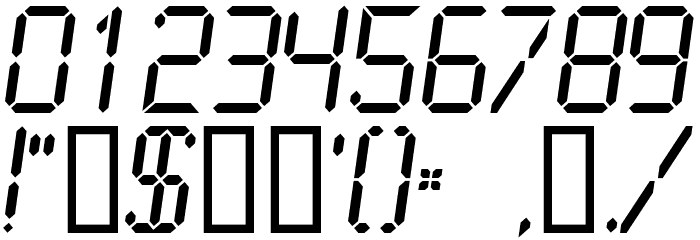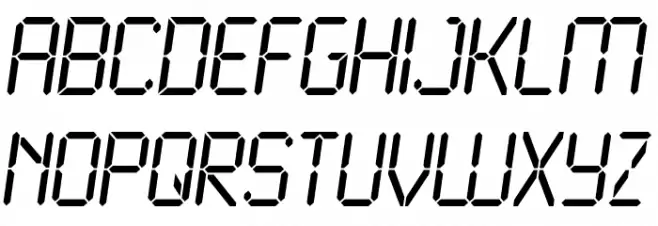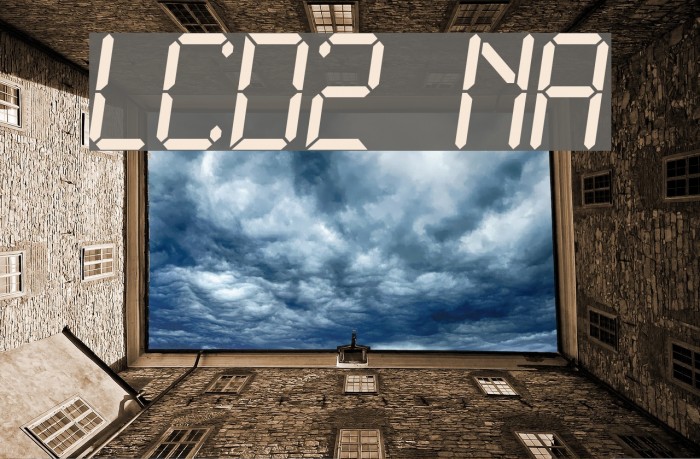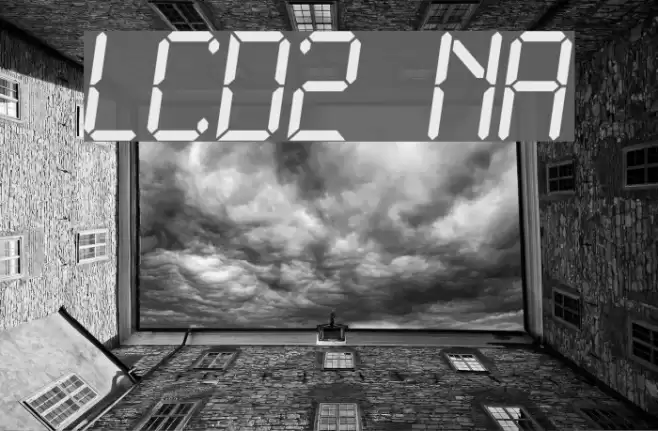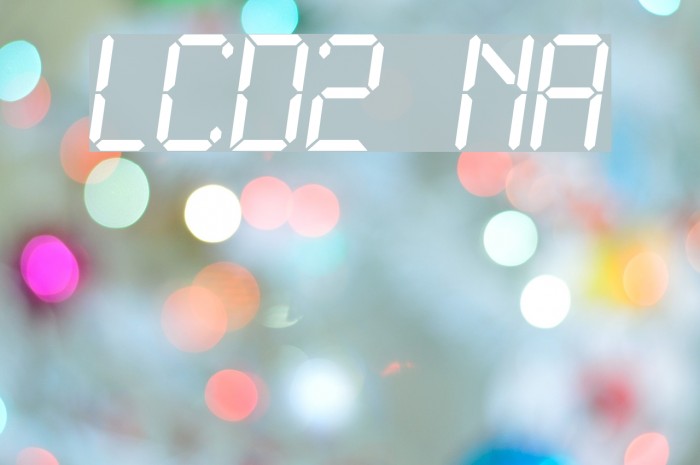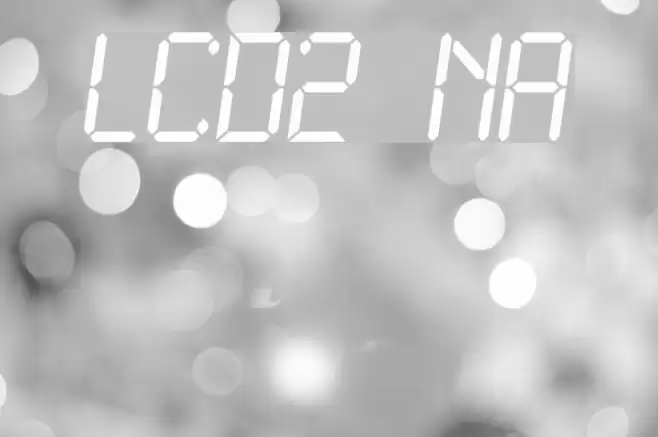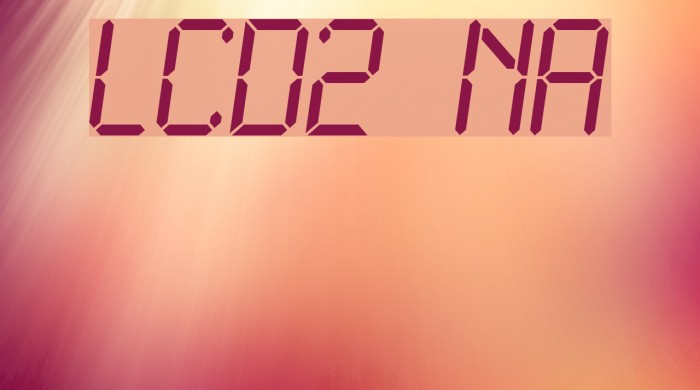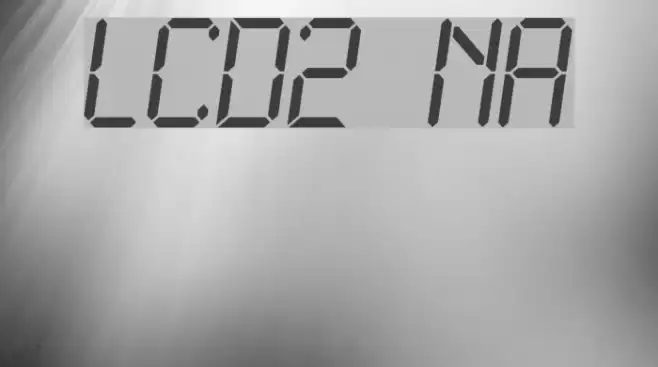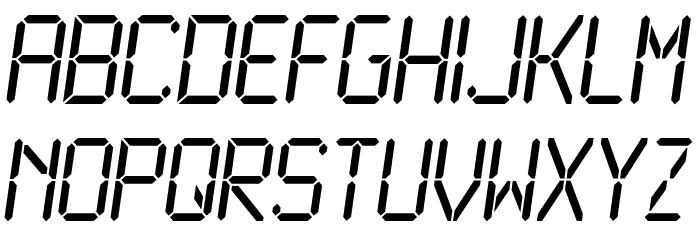
LCD2 Normal Font
| Anwendungsfall | Headlines, Digital displays, Tech interfaces |
| Vorgeschlagene Projekte | Ideal for digital interfaces, tech-themed designs, electronic displays, and retro-futuristic projects. |